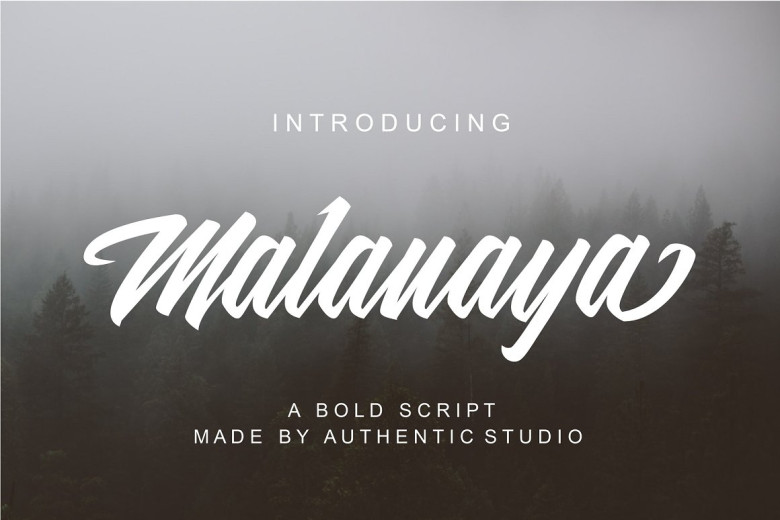
Malanaya Font
Malanaya is a bold script. Malanaya a beautiful for logotype, website header, fashion design, wedding card design and any more. It contain a full set of lower & uppercase letters, a large range of punctuation, numerals, and multilingual support.
Malanaya Script Font